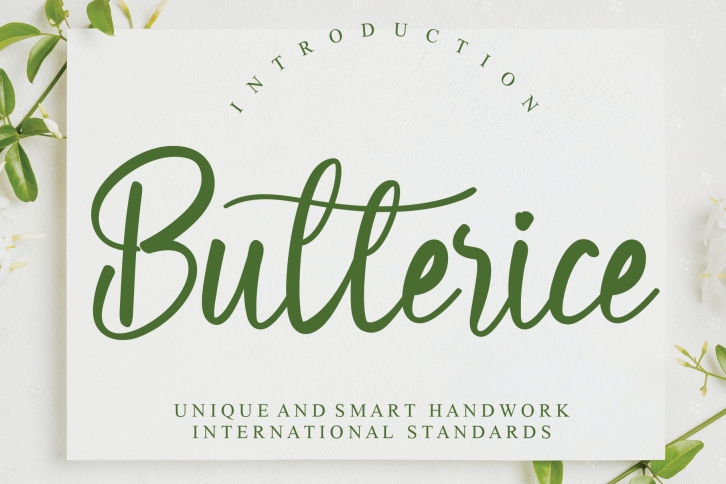
Butterice is a trendy and unique font with an authentic style. It was designed by Scratchones and it's a great choice for creative people who need such a font. It was released on August 31, 2021 and the file size is 4.24 MB. Butterice will add an organic vibe to any design idea!